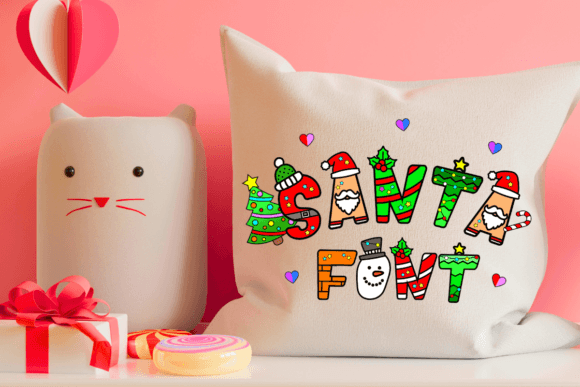
Santa Font
Santa Font is a festive typeface adorned with jolly Christmas patterns and charming decorative elements. Perfect for adding a touch of holiday cheer to your designs, this font brings the magic of Christmas to life with its whimsical style. Whether you’re creating greeting cards, party invitations, or seasonal decorations, Santa Font adds a merry and bright flair to any project. Get ready to spread joy and warmth with this delightful font inspired by the spirit of the season.